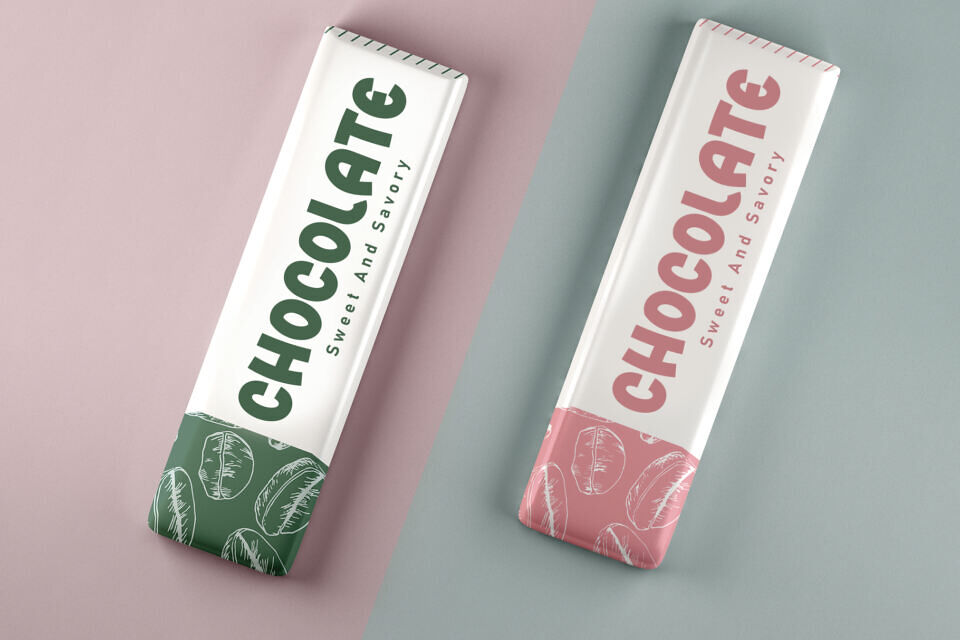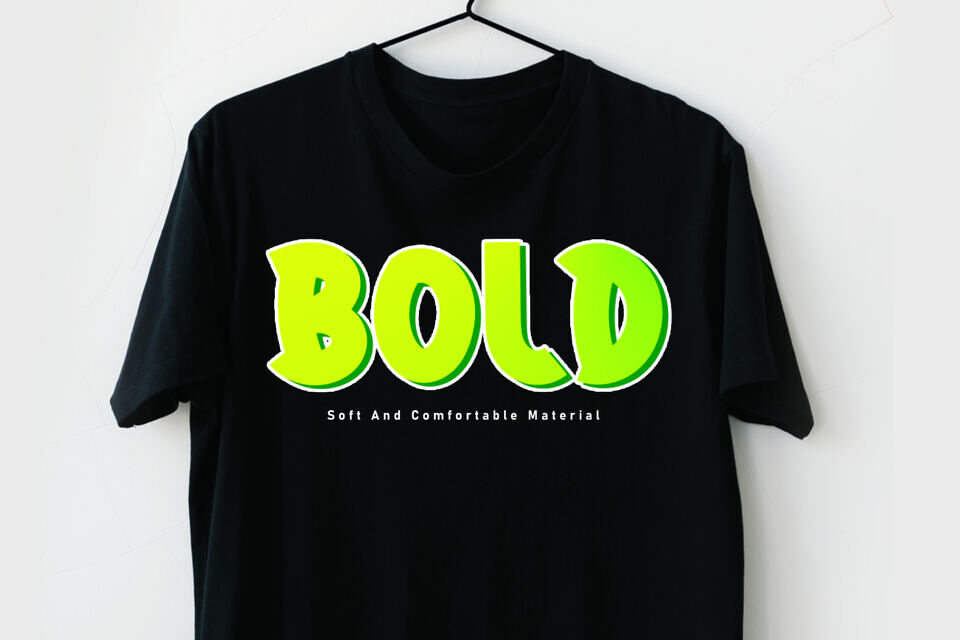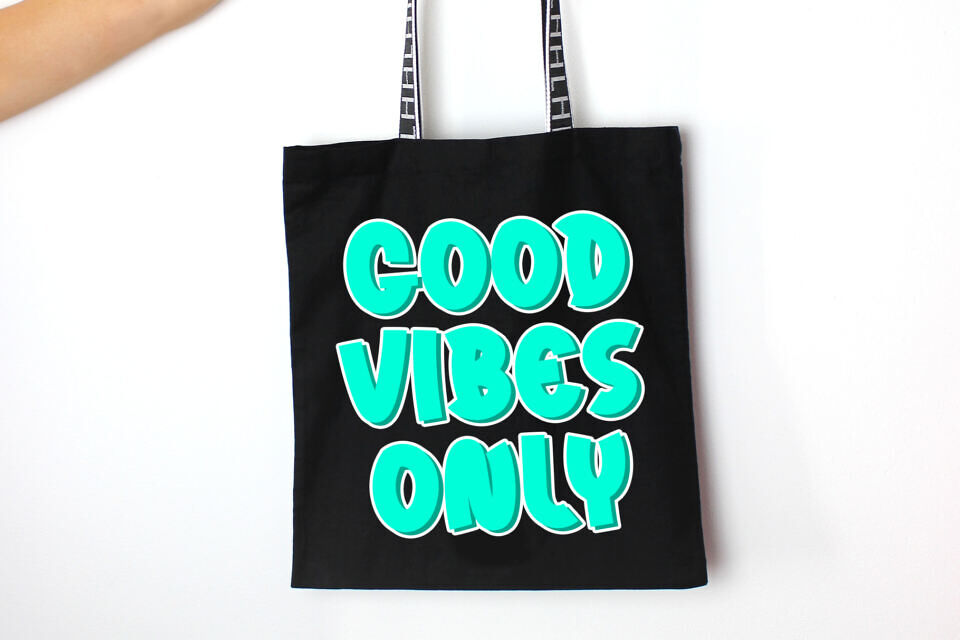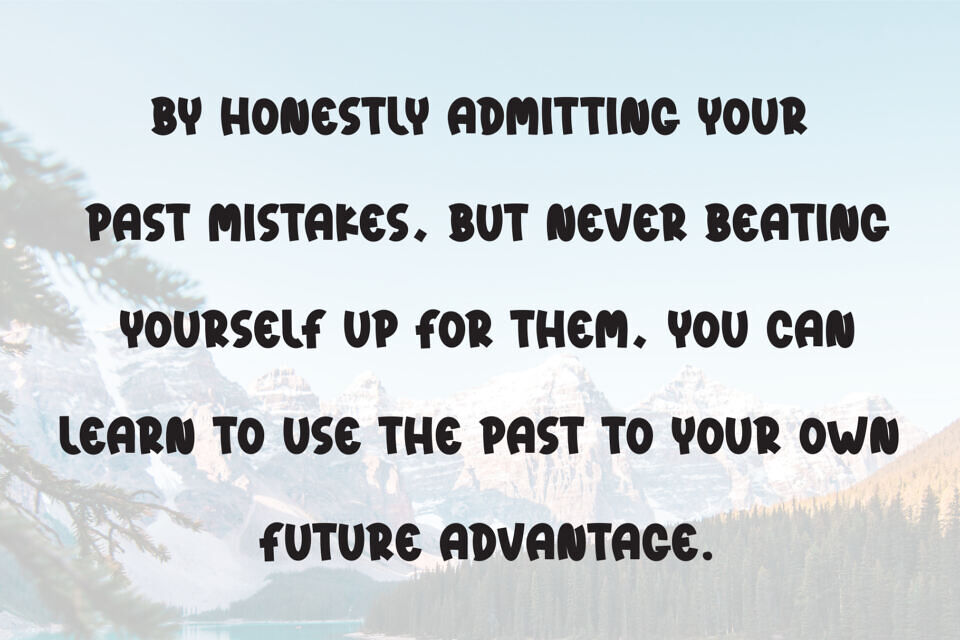
Lumps Snow Font
Lumps Snow is a sweet and friendly handwritten display font. Cute and fun, this font is ideal for writing wedding invitations, cards, or any other design that might need a playful touch!